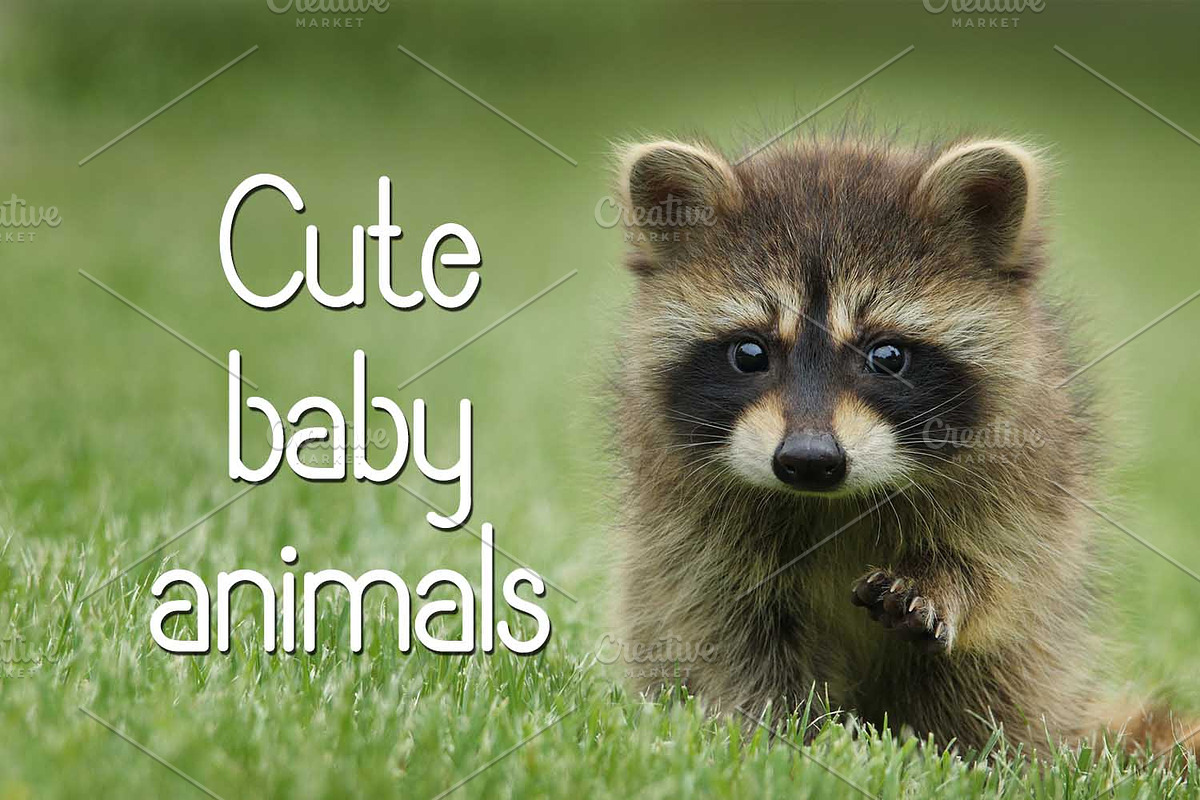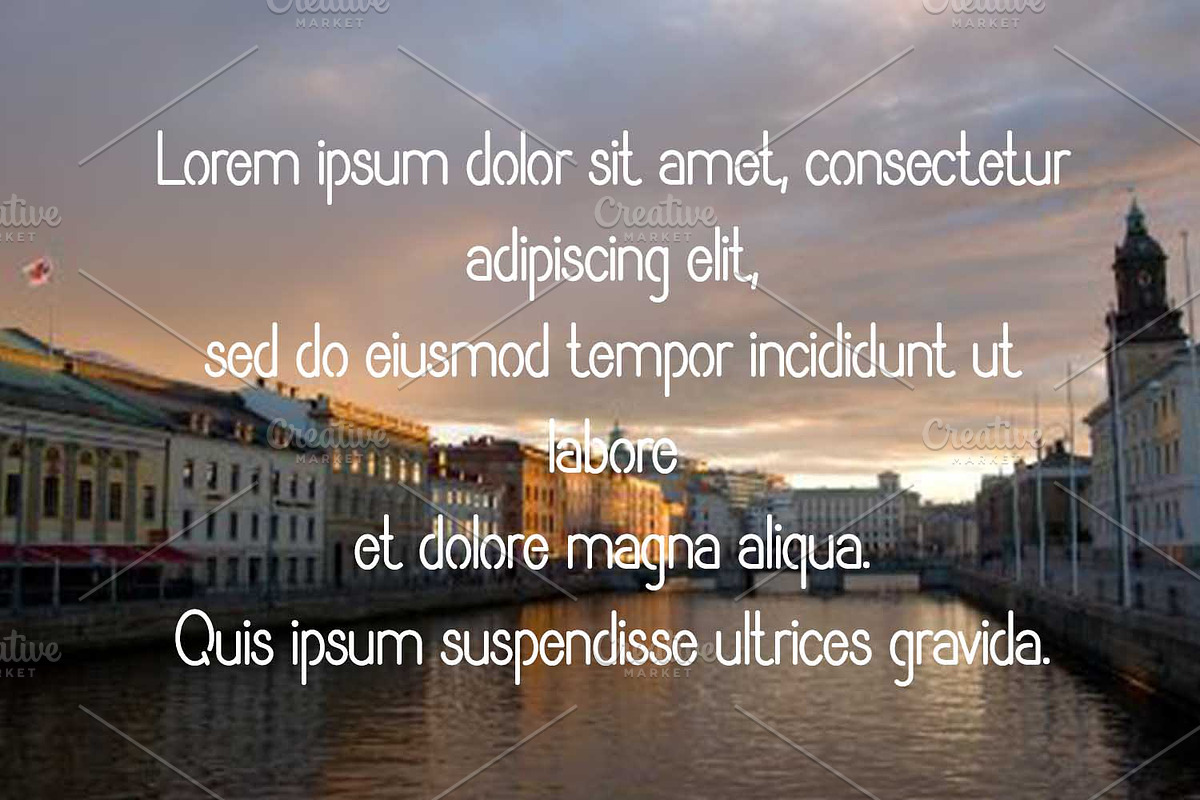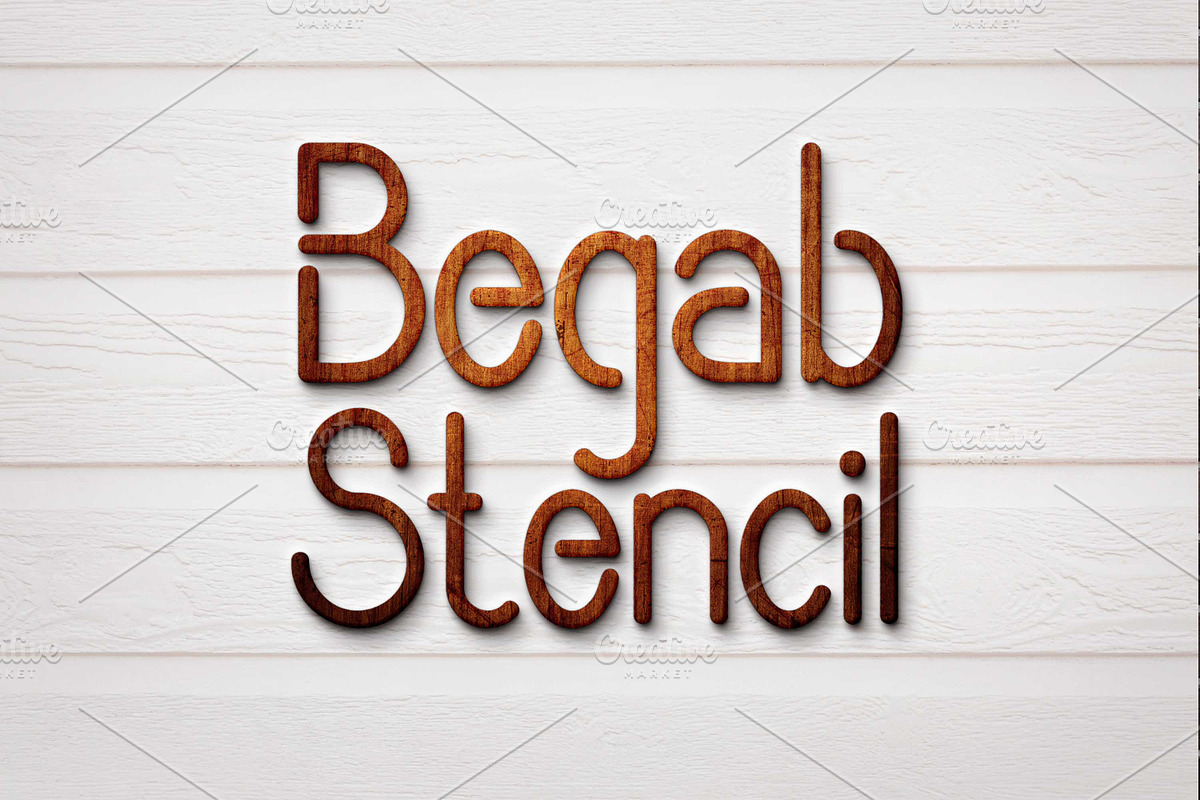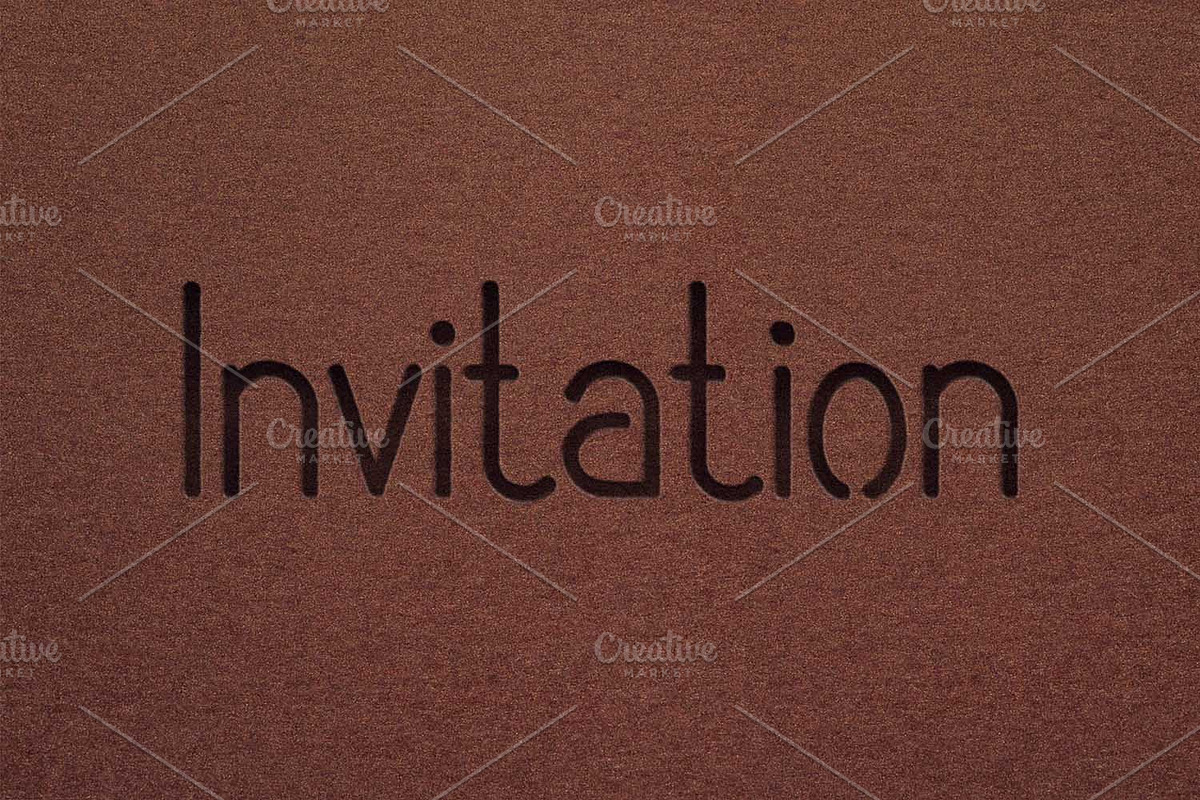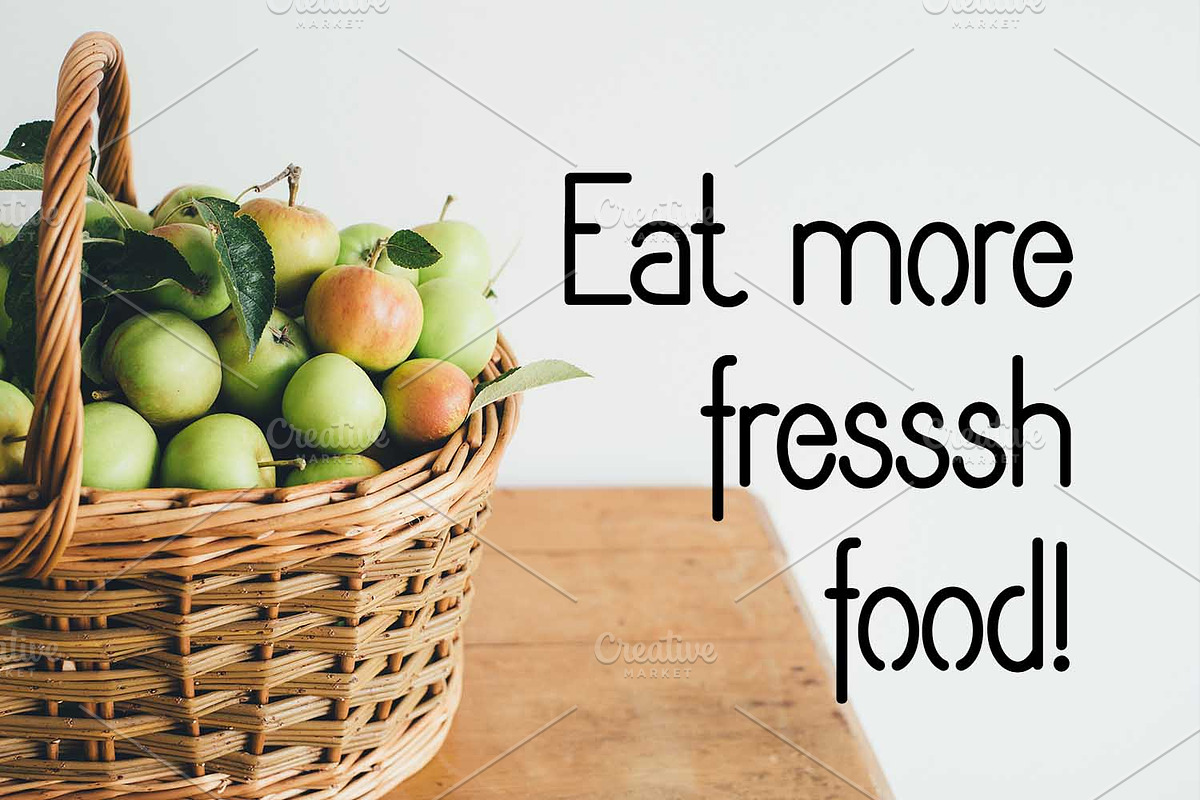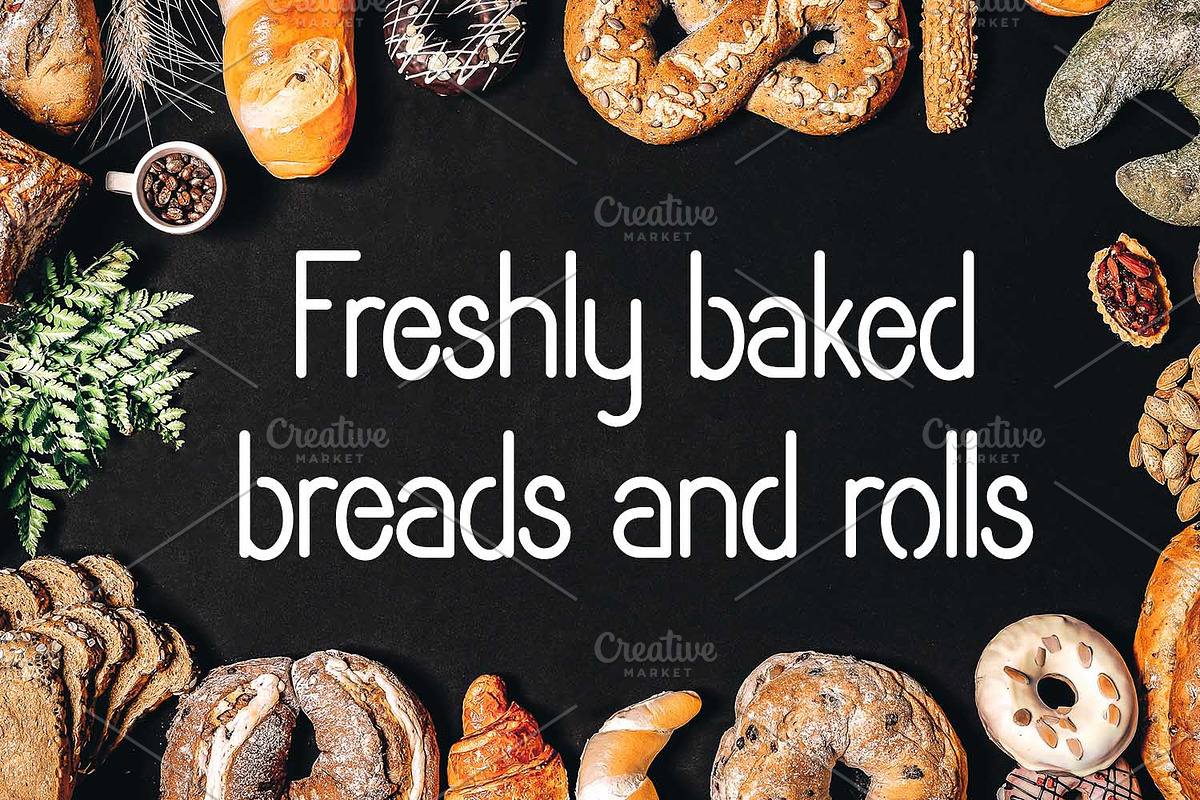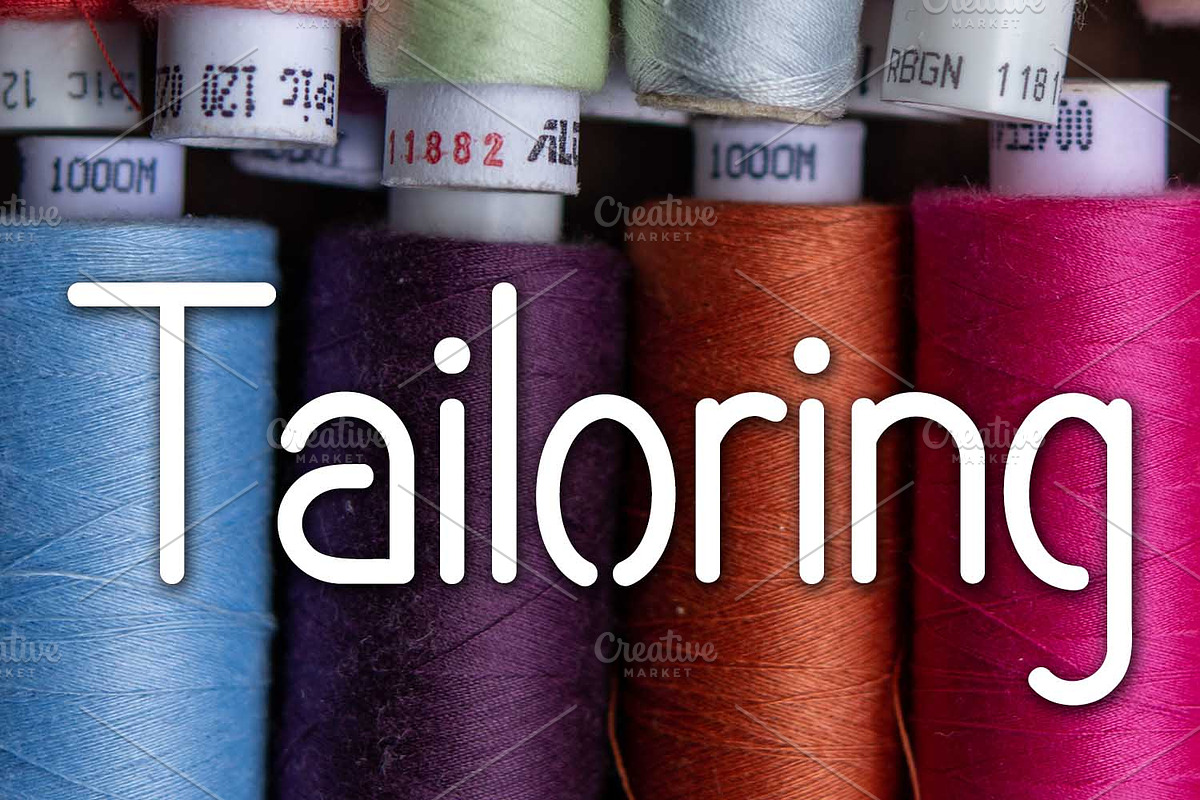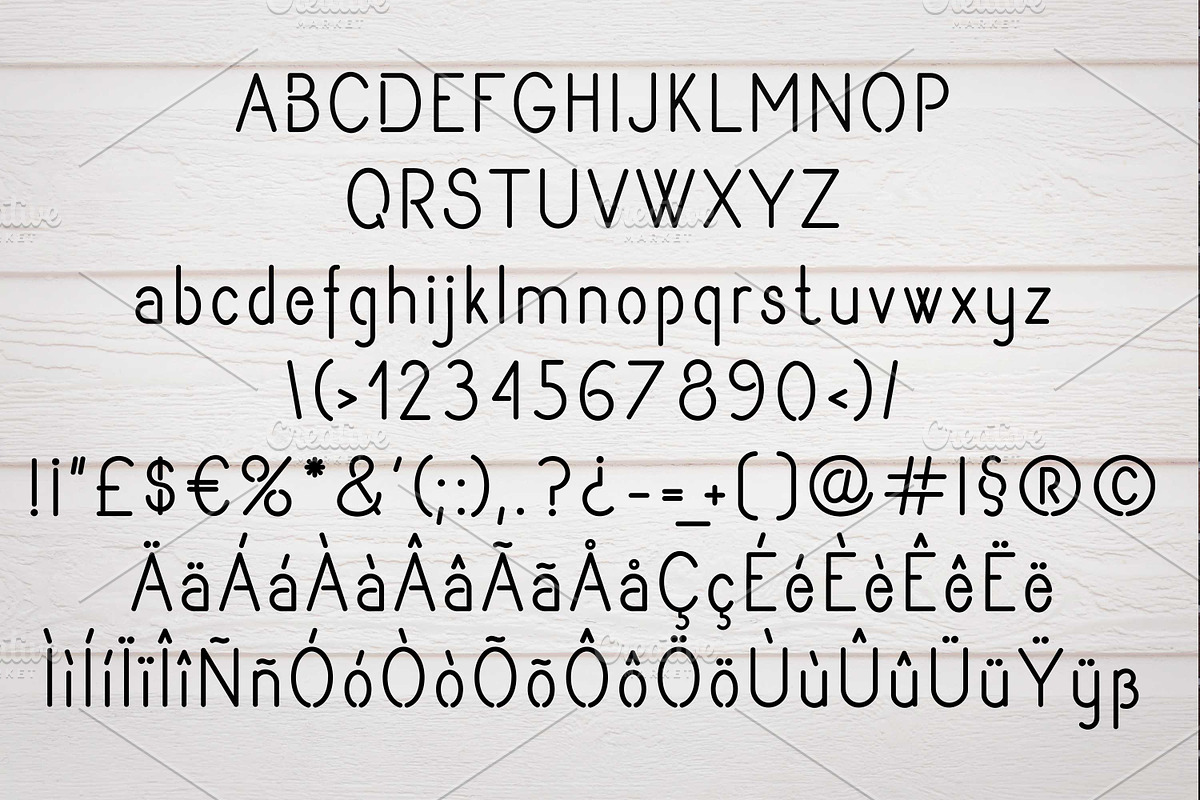
Begab Stencil
Begab Stencil Font is a carefully crafted font will be a wonderful asset to your font library. It is a perfect choice if you going to use laser, engraver or other machines, as there is not closed loops on the characters.